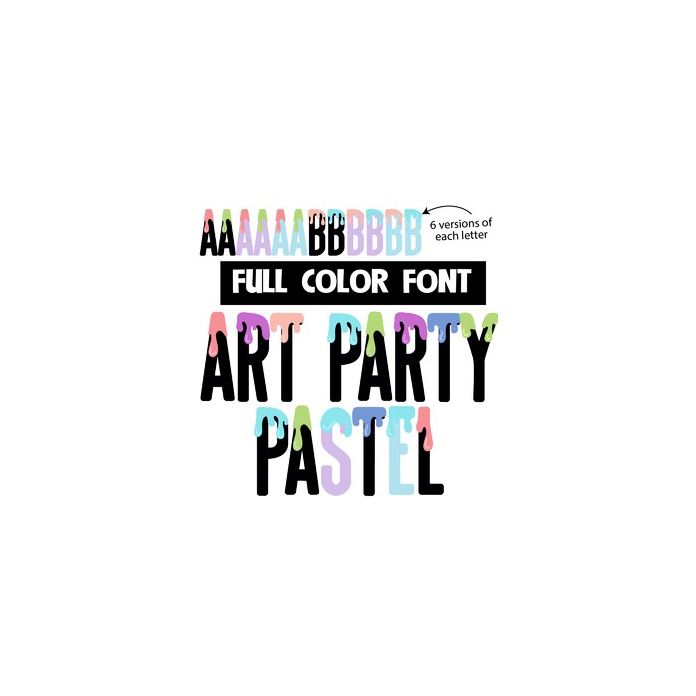
This full-color font features pastel paint dripping down black letters. There is two additional alt cases in pale blue and lavender for a total of six choices/letter. Access alt cases through Silhouette's glyph map.